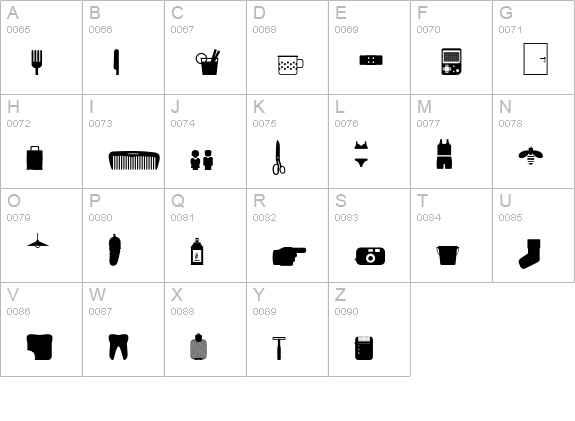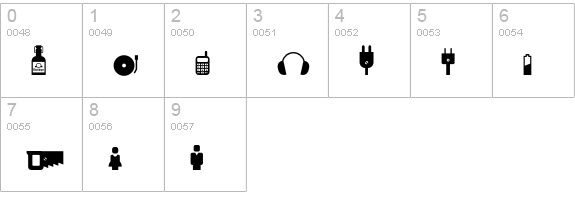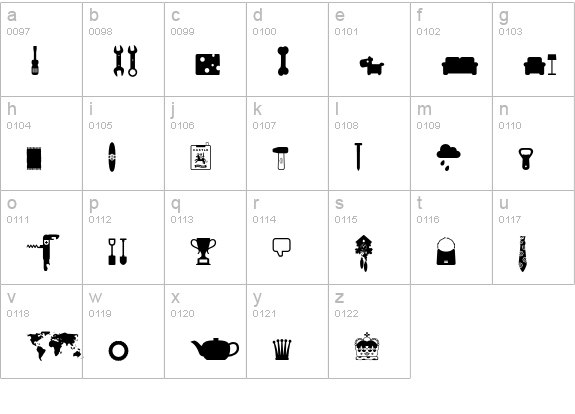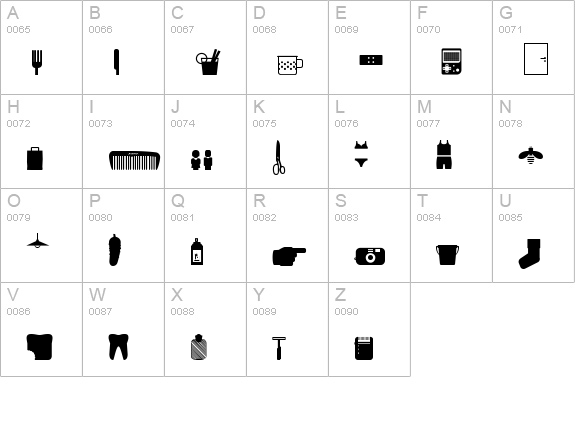
Ginger-Icons font is a stunning collection of unique and versatile icons that will add a touch of creativity and style to any design project. This free font features a wide range of meticulously crafted icons, perfect for various design applications such as websites, mobile apps, posters, and more. Each icon is designed with precision and attention to detail, ensuring high quality and visual appeal. Ginger-Icons font is freely available to download at FontsMarket.com, making it easily accessible to designers and creatives looking to enhance their projects with eye-catching icons. With its modern and sleek design, this font is sure to make a statement and elevate the overall look of your designs. Don't miss out on the opportunity to add this versatile and stylish font to your collection today!